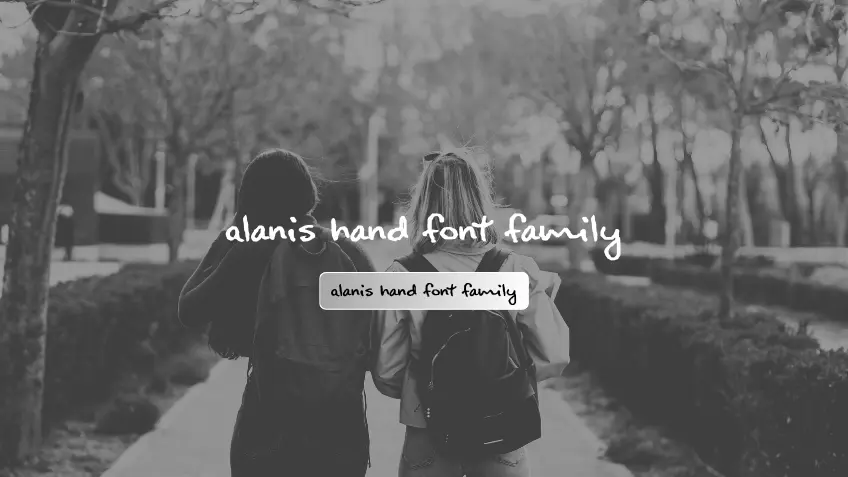
The font Alanis Hand Regular, designed by Himasf, falls under the Handwritten, Script category & Alanis Hand font family. Its smooth, flowing letterforms make it a versatile choice for projects that require both elegance and readability. Alanis Hand is particularly well-suited for Personalized Products, Creative Projects, Social media graphics and Informal invitations. With its balance of simplicity and decorative appeal, this font brings a polished touch to both personal and professional designs.